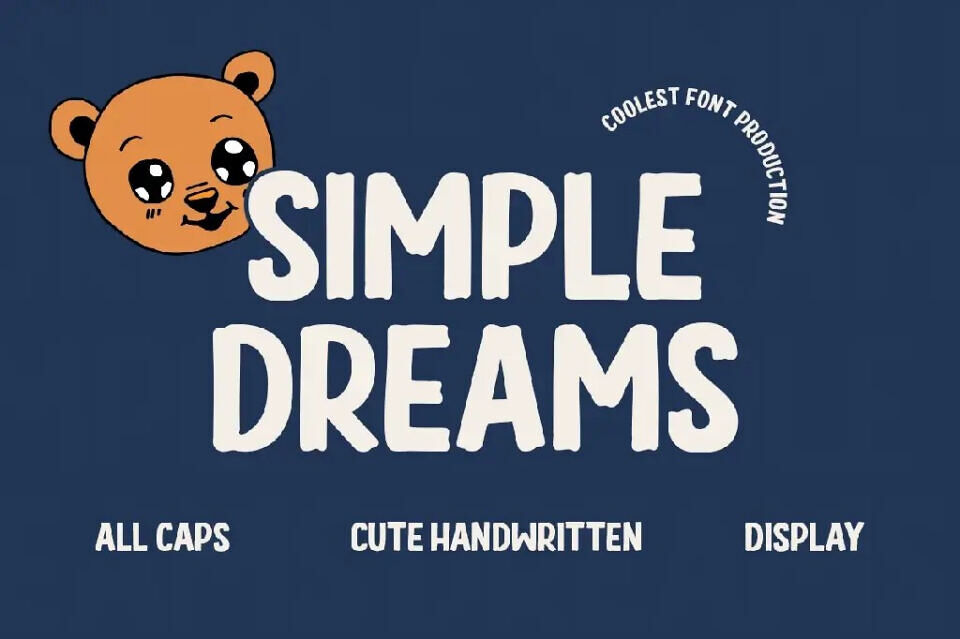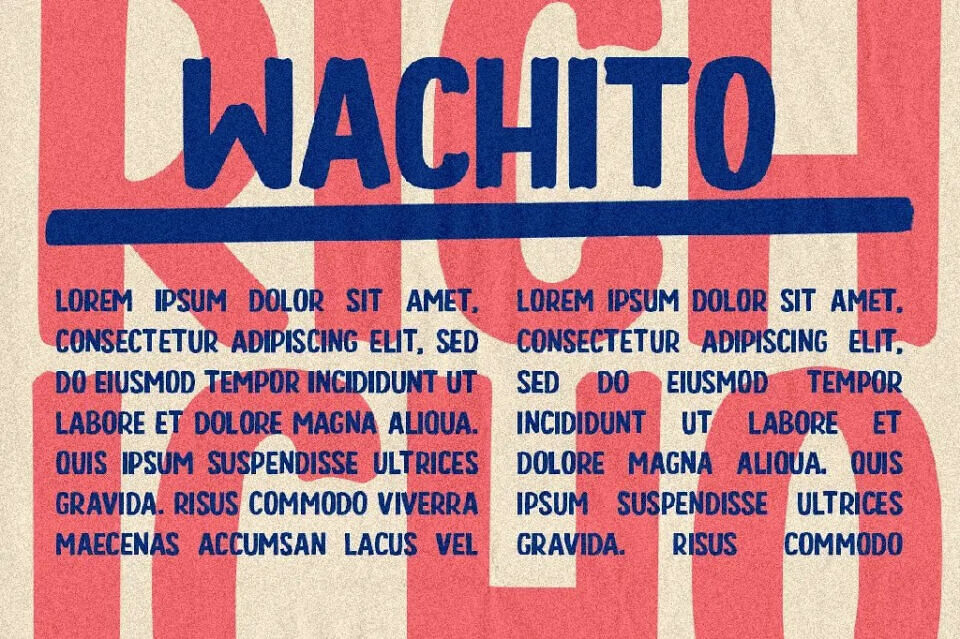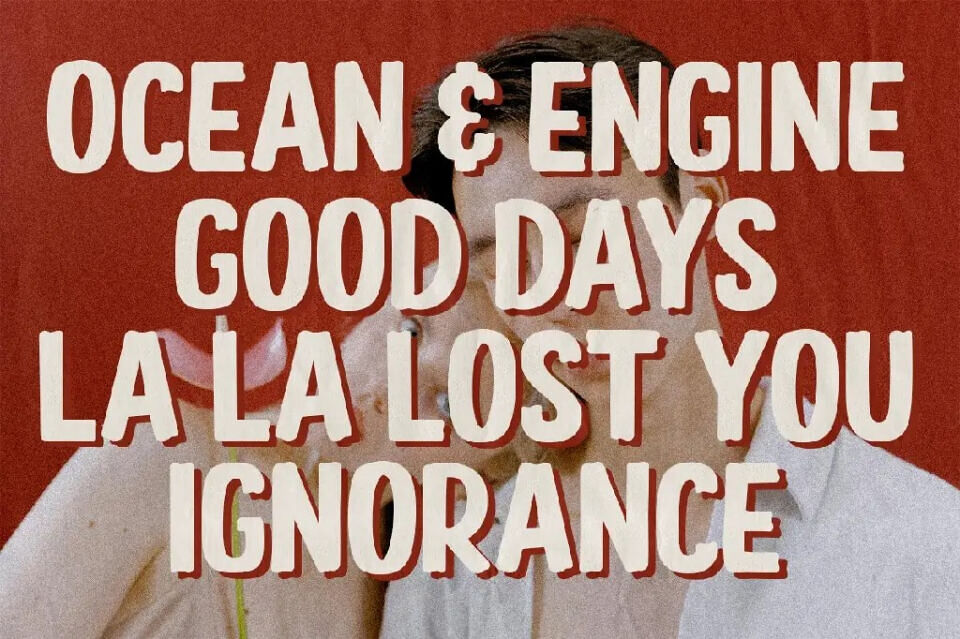
Simple Dreams Font is a playful handwritten display font that combines a bold, modern aesthetic with a touch of cuteness. Perfectly crafted for creative projects, this fancy font adds personality and charm to any design. Whether you’re looking for a branding font, a striking poster font, or a versatile logo font, Simple Dream Font is the perfect choice to elevate your typography.
With its smooth all-caps style, this font blends casual vibes with professional readability, making it suitable for both digital and print designs. If you’re searching for modern fonts that bring warmth and character, this typeface is a must-have in your collection.